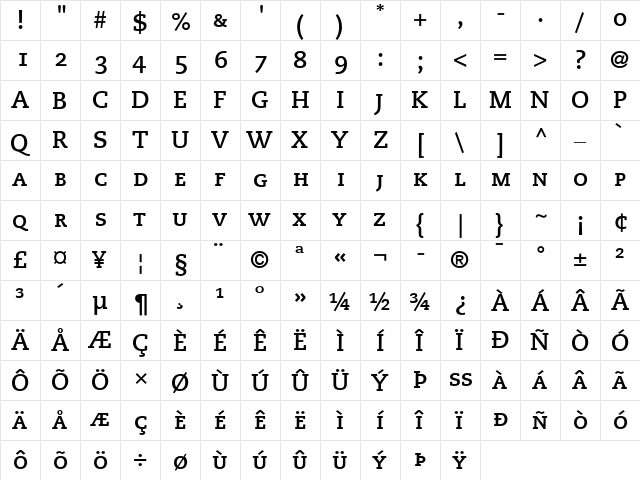
Caecilia LightSC Bold Font Preview
Caecilia LightSC Bold
Caecilia LightSC Bold Font Details
Design Context for Caecilia LightSC Typeface
Caecilia LightSC offers clean, dependable letterforms without strong stylistic allegiance, making it a practical choice for designers who need flexibility. Its bold stroke weight gives it real presence on the page.